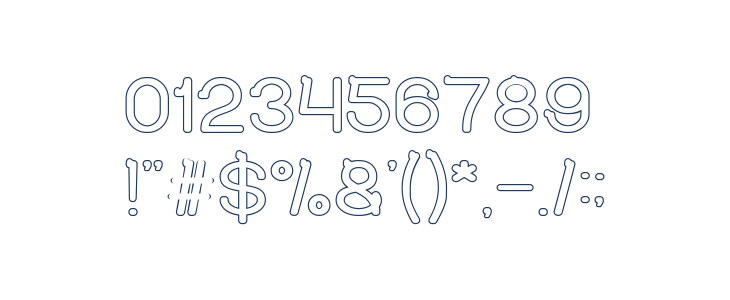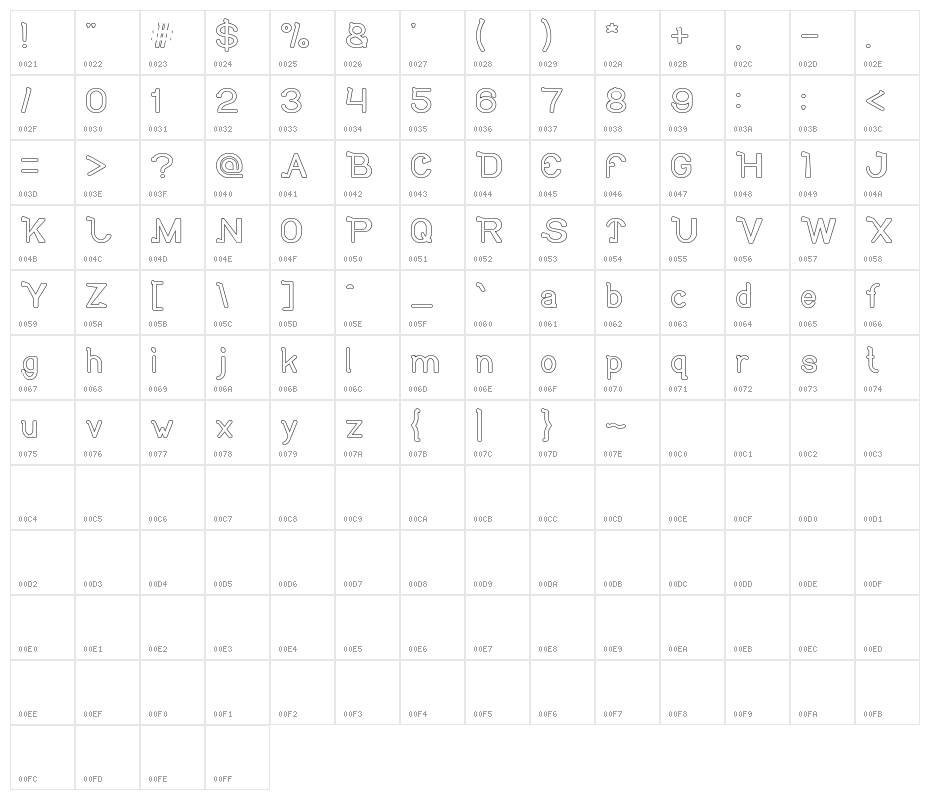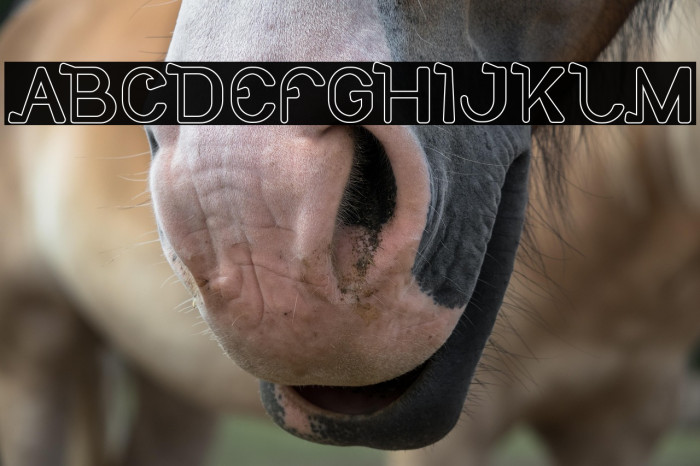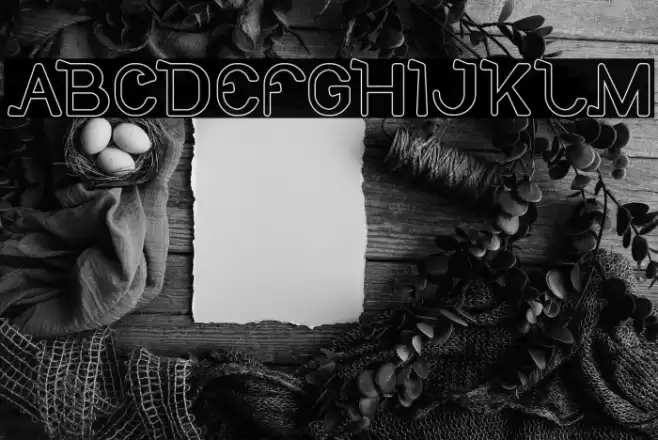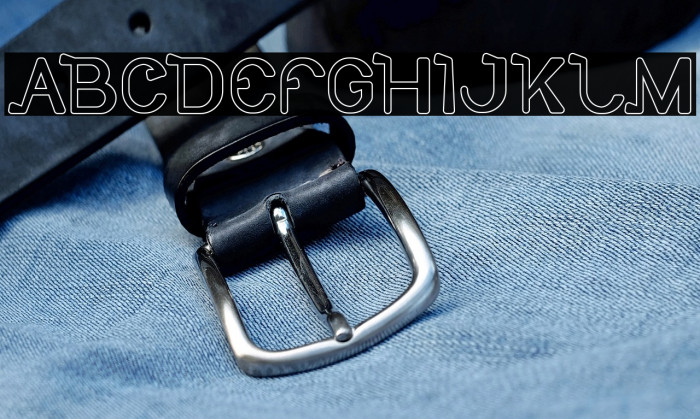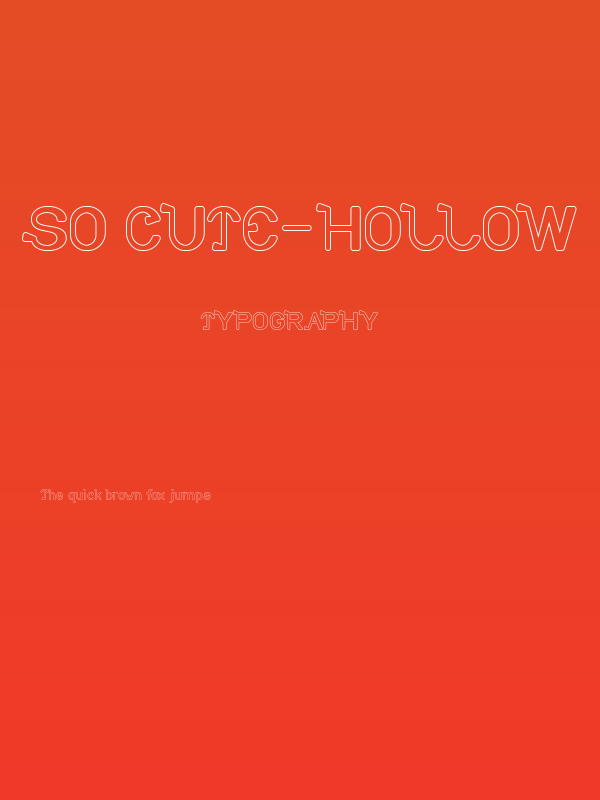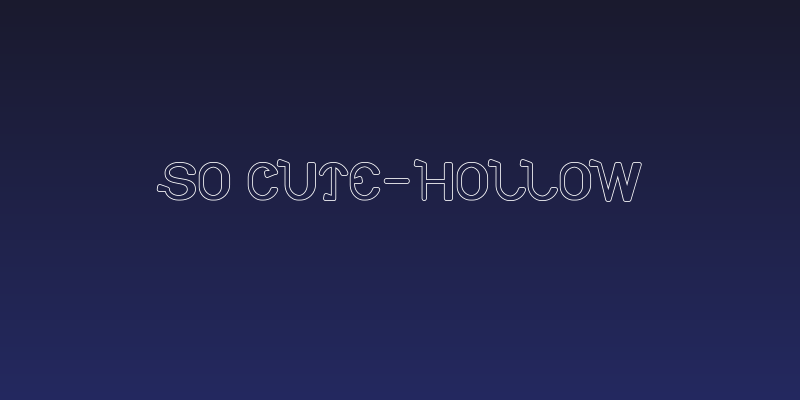
So Cute-Hollow Font
So Cute-Hollow Description
This font features a playful and whimsical hollow design, characterized by its rounded edges and open interiors. The uppercase and lowercase letters maintain a consistent width, creating a harmonious and balanced look. The numerals and special characters follow the same hollow style, adding to the font's cohesive appearance. Its unique design makes it stand out, offering a fun and approachable aesthetic. The font's structure is clean and legible, making it suitable for various creative applications. The hollow aspect gives it a light and airy feel, perfect for projects that require a touch of creativity and playfulness.